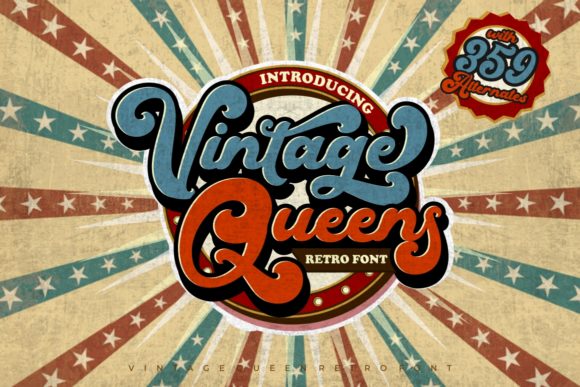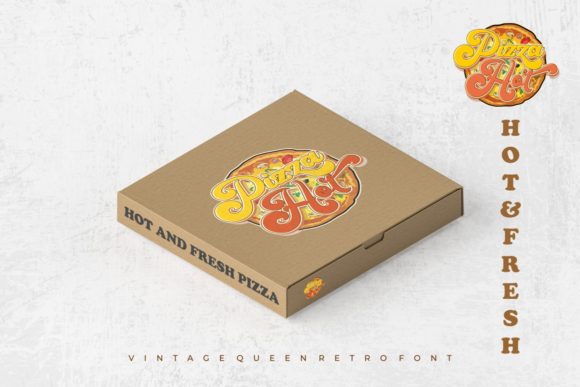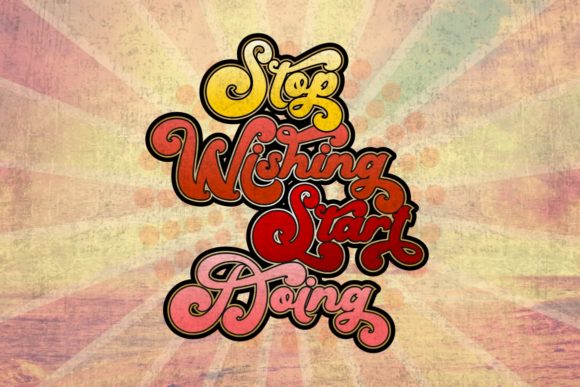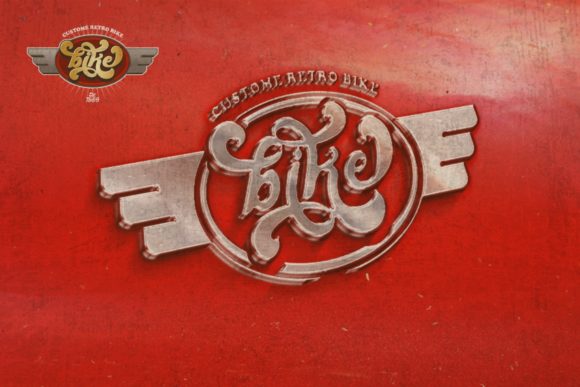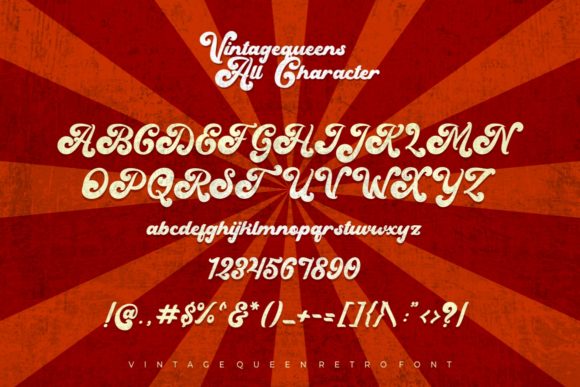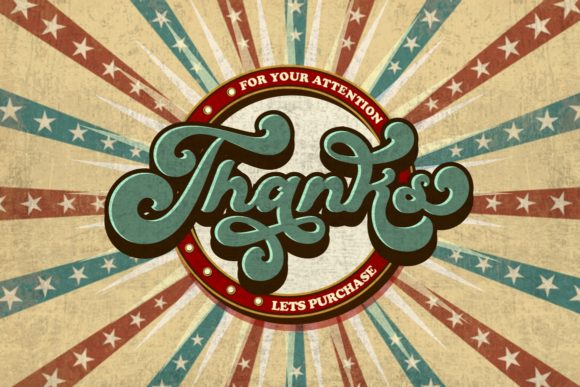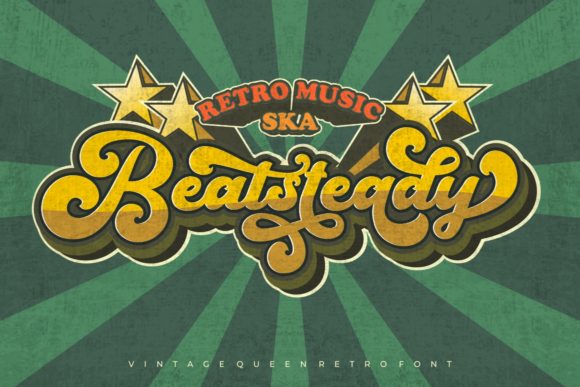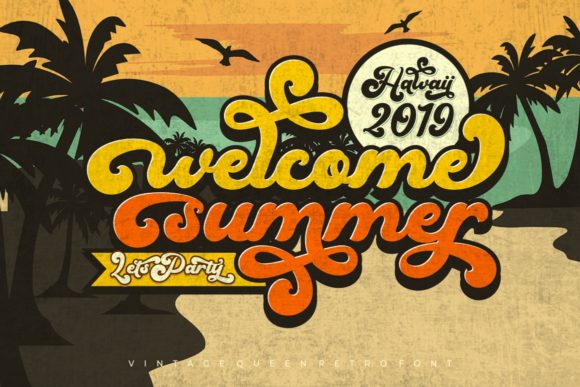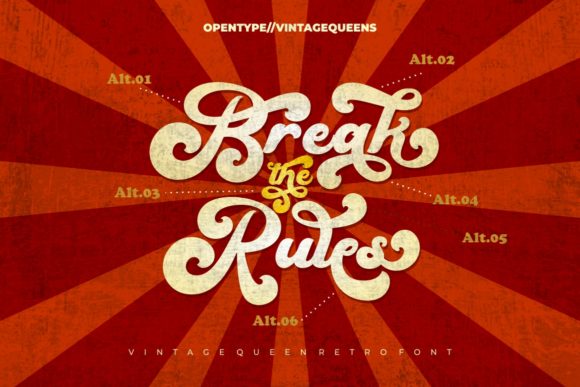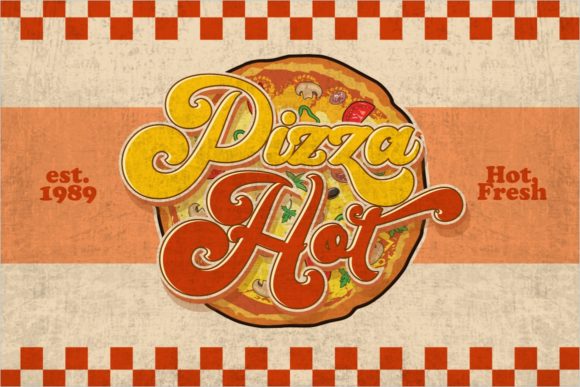
Vintage Queens Font
About Vintage Queens Font
Vintage Queens is a bold typeface inspired by retro typography from the 70’s and 80’s. Great for a variety of retro-themed projects!